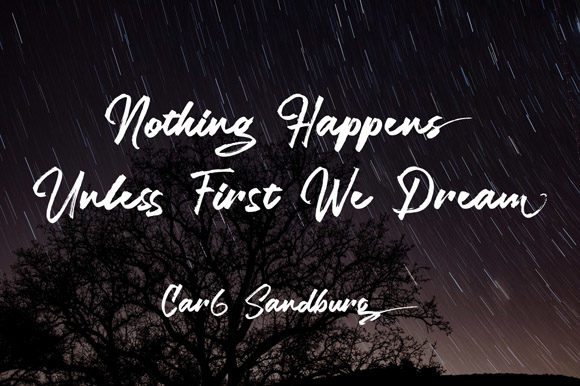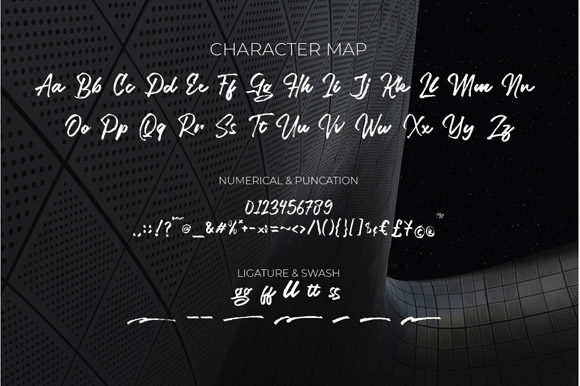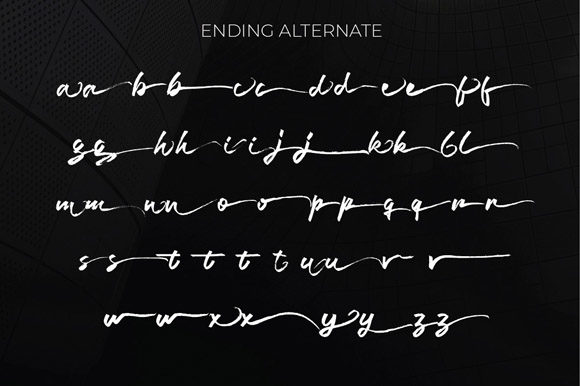
Discovering the Magic of Legiante Font
Remember the thrill of scribbling notes in a notebook or signing your name with a flourish? It’s those small moments of creative expression that can spark a world of inspiration. For designers, finding the perfect font can be just as exhilarating. That’s where the Legiante Font comes in – a handwritten masterpiece with an undeniable charm that’s sure to elevate any creative project.
Handcrafted with love, the Legiante Font boasts quick dry strokes and a signature style that’s as unique as it is captivating. Whether you’re working on a branding project or need a high-quality font for your design resource, Legiante Font is an exceptional choice. With its transparent background and free download option, you can seamlessly integrate it into your next creative endeavor.
As a valuable addition to any designer’s toolkit, the Legiante Font is poised to take your projects to the next level. In this article, we’ll delve into the world of this enchanting font, exploring its history, features, and uses. Get ready to discover the magic of Legiante Font and unlock new possibilities for your design work.
Key Features of Legiante Font
- High-quality, professional design resource ideal for creative projects
- Features a transparent background, allowing for effortless integration with various design elements
- Unique, modern design aesthetic suitable for a wide range of creative projects, from branding to digital art
Honest Review: Legiante Font
As a designer, I’m always on the lookout for high-quality design resources to elevate my creative projects. Recently, I stumbled upon the Legiante Font, and I’m excited to share my thoughts on this elegant script font.
- ✨ Beautiful, flowing script style that’s perfect for creative projects.
- ⚠️ The font doesn’t come with a transparent background option, which can make it challenging to work with in certain design scenarios.
Overall, I’m impressed with the Legiante Font’s beauty and versatility. While it has some limitations, its strengths make it a valuable addition to any designer’s toolkit. With its elegant script style and free download option, it’s an excellent resource for designers working on creative projects.
Tips for Getting the Most Out of Legiante Font
Use the Legiante Font in combination with other design elements, such as images and graphics, to create visually appealing designs. Experiment with different font sizes and styles to add emphasis and hierarchy to your text.
The Legiante Font is ideal for creative projects, such as branding, marketing materials, and social media graphics. Its high-quality design and transparent background make it perfect for creating eye-catching designs that stand out from the crowd.
Alternatives to Legiante Font
Pacifico Font is a beautiful, high-quality script font ideal for creative projects that require a touch of elegance. Its open and airy design makes it perfect for use on a transparent background, allowing the focus to be on the design itself. It’s a great alternative to Legiante Font for designers who need a sophisticated and stylish font for their designs.
When to use: Pacifico Font is ideal for wedding invitations, product packaging, and other high-end designs.
Comparison: Pacifico Font has a more refined and polished look compared to Legiante Font, making it a better choice for designs that require a touch of luxury.